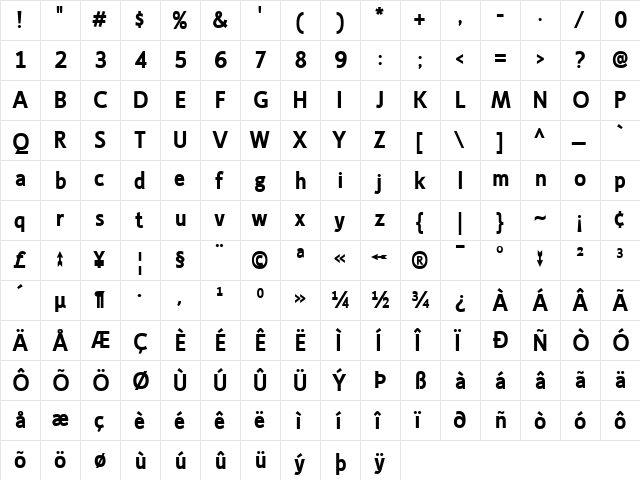
Ligurino Bold
Bold · Ray Larabie Ray Larabie ·
Design Context for Ligurino Typeface
Ligurino offers clean, dependable letterforms without strong stylistic allegiance, making it a practical choice for designers who need flexibility. The heavy weight commands attention and anchors typographic hierarchies.